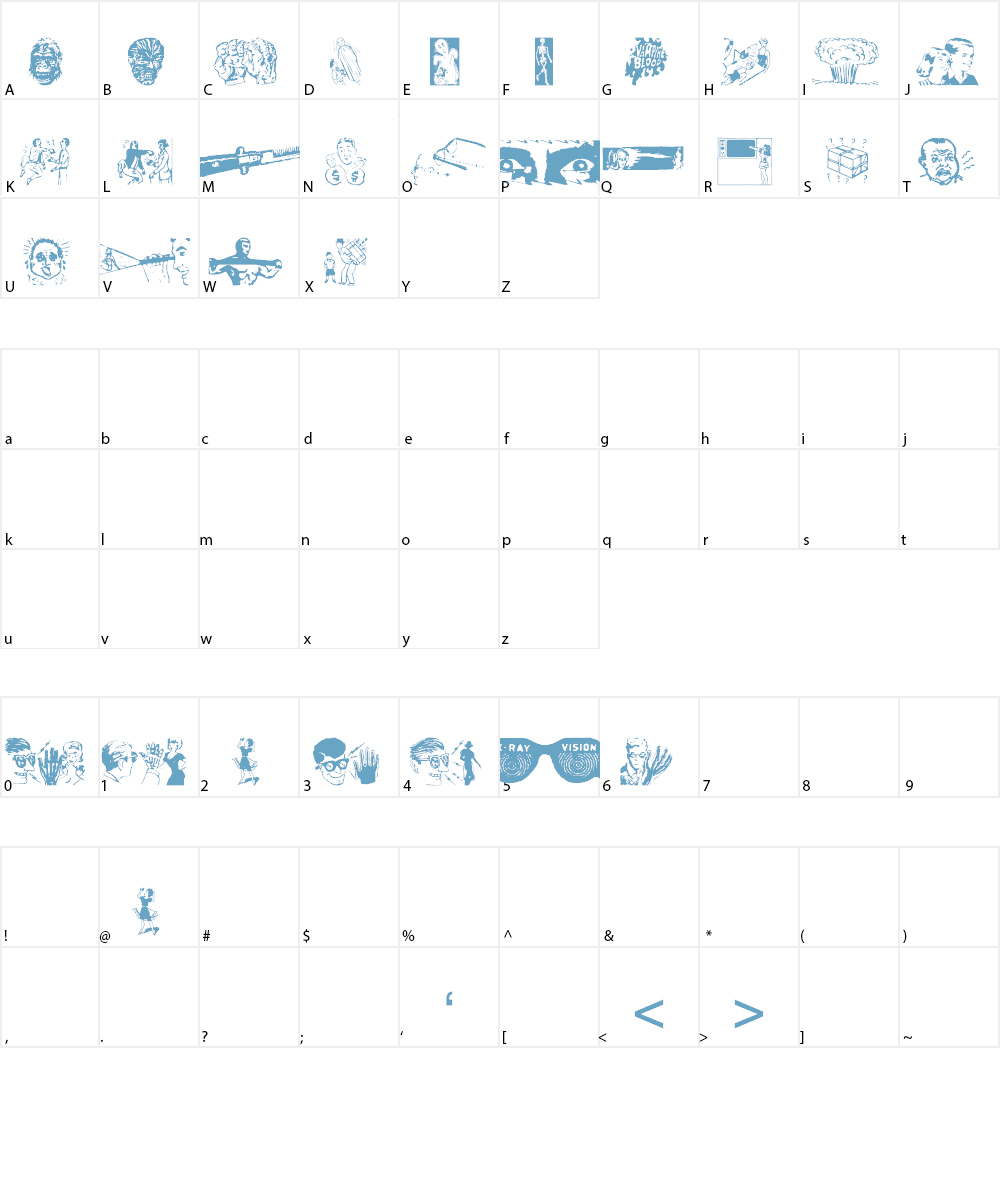
A dingbat font made from little images that used to show up in comic books, etc, and try to sell us things...useless things...but things that made us glad to not have hit puberty yet.